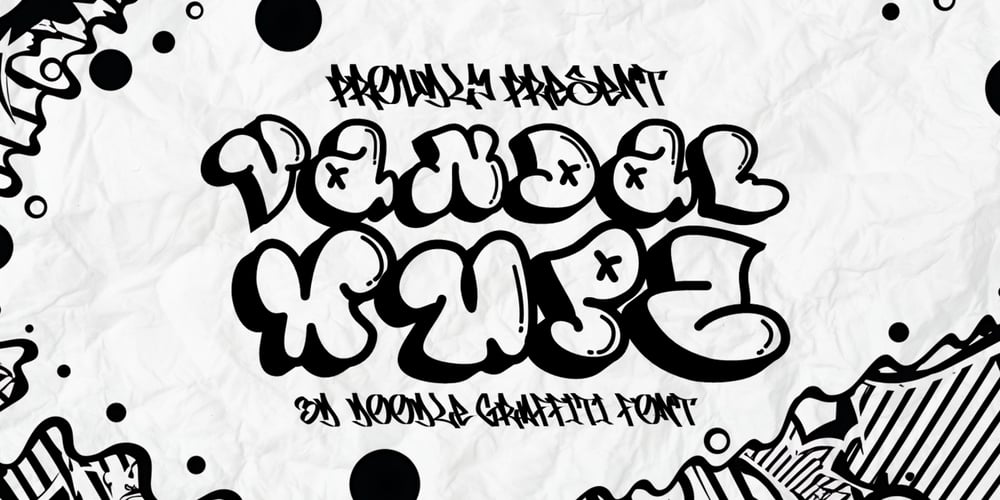
Vandal Wupz Doodle Graffiti Font Family was designed by Sipanji and published by Sipanji21. Vandal Wupz Doodle Graffiti contains 1 styles and family package options. “Vandal Wupz” is a lively and playful doodle bubble graffiti font that brings an energetic and creative touch to your designs. Each character is crafted with an outline and shadow, giving it a distinct and bold appearance. The hollow inside of the characters enhances the font’s 3D effect, making your text pop off the page with a striking visual impact. This font is perfect for street art projects, urban-themed designs, posters, and any creative work that demands a bold, fun, and eye-catching graffiti style. With “Vandal Wupz,” you can add a unique and dynamic flair to your typography, capturing the essence of urban culture and artistic expression.